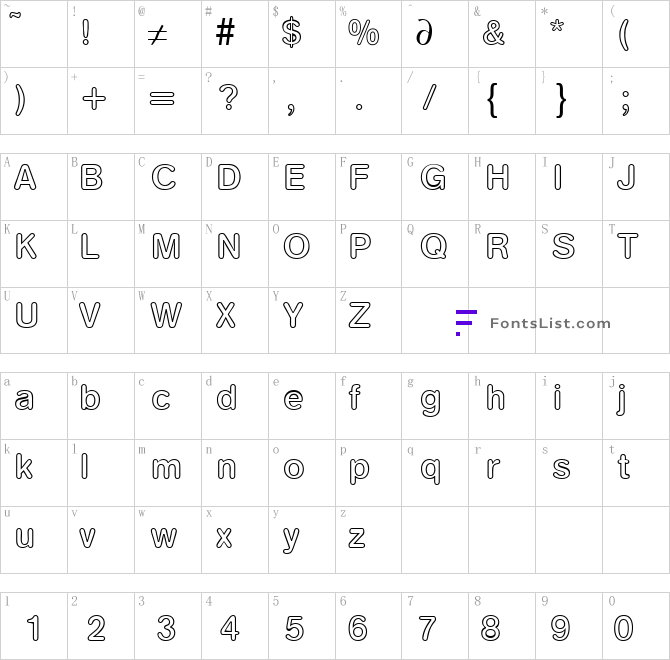
- Font Name:AkzentRoundedOutMedium DB
AkzentRoundedOutMedium-Regular-DB.ttf is a very beautiful artistic font, AkzentRoundedOutMedium-Regular-DB.ttf is widely used in the design and printing of various books and pictures,AkzentRoundedOutMedium-Regular-DB.ttf has a strong visual impact,AkzentRoundedOutMedium-Regular-DB.ttf is a commonly used font in newspapers, magazines and books, and is used in posters, e-commerce Poster design, store design, logo design, font design and other fields.AkzentRoundedOutMedium-Regular-DB.